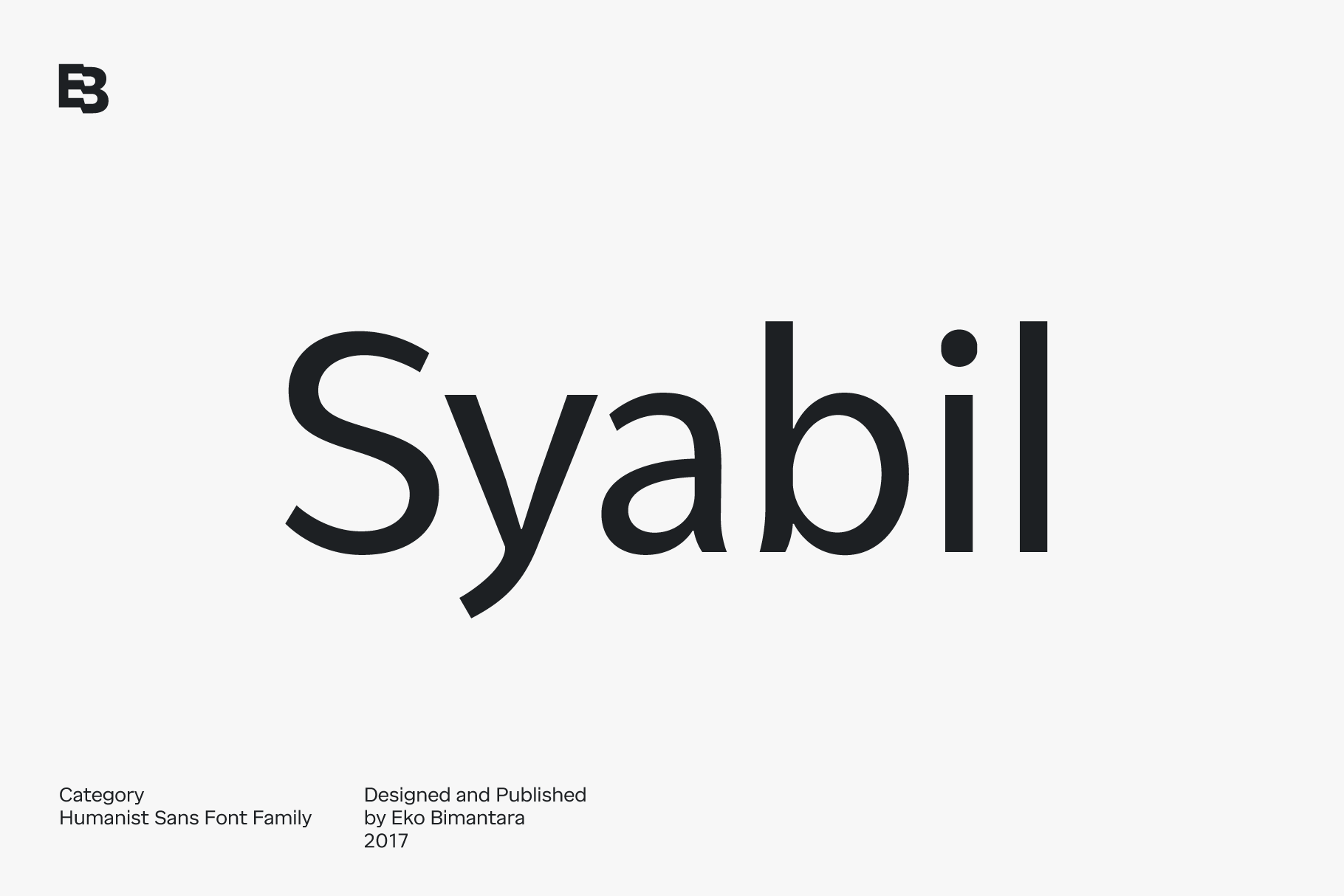
Syabil 18 Sans Serif Font
Syabil. Is a sans serif font family designed by Eko Bimantara. This font crafted with the intention to present a clean, legible, multipurpose that easy to read wether it on screen or print. Fit for all purposes; Text, display, headline, print, corporate identity, logo, branding, product, infographic, photography and other application and medium. This font consist of 9 weight; Thin, Light, Book, Regular, Medium, SemiBold, Bold, ExtraBold and Heavy with each weight paired by italic. Also including Latin Plus language support with more than 11.700 glyphs in all weight.